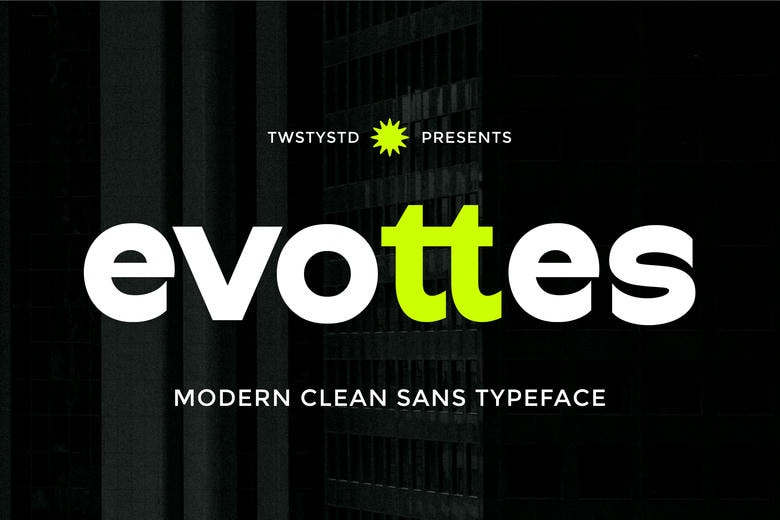
Evottes Font
Evottes is a modern sans-serif font with simple geometric shapes, balanced proportions, and clear letterforms. Its clean design gives it a fresh look that works well for both display and everyday projects.
Evottes Sans Serif Font